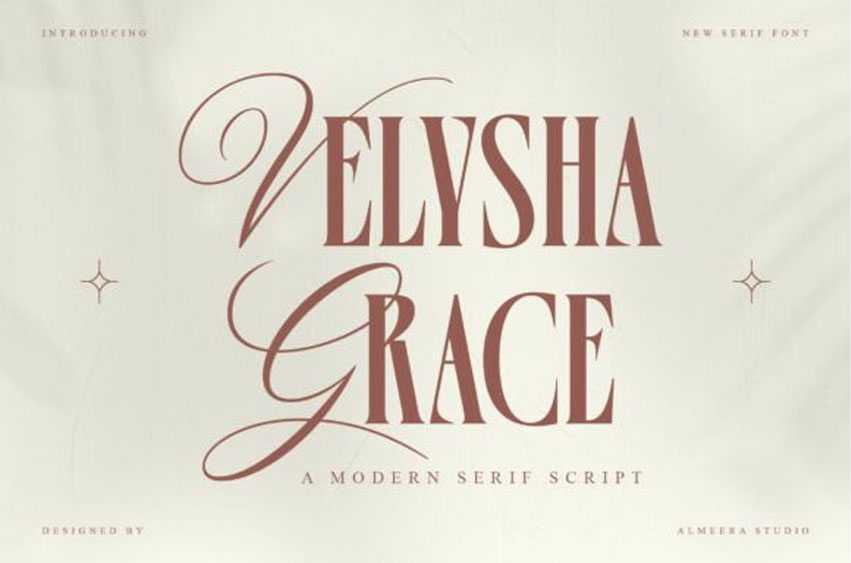
Velysha Grace Font is a Modern Serif Script featuring tall silhouettes, elegant strokes, and long flowing flourishes that bring a high-end, graceful character to your designs.
Velysha Grace font is an exquisite modern serif that marries the structured elegance of a high-contrast serif with the dramatic, sweeping lines of a script, resulting in a breathtakingly sophisticated display typeface.
This font is a true style statement, with its striking, tall letterforms and the luxurious, oversized swash alternates that can be used on both capital letters and descenders, creating an unforgettable visual impact. The Velysha Grace typeface is purpose-built for luxury branding, high-end wedding invitations, fashion editorials, and premium cosmetic or fine jewelry packaging. It delivers an aesthetic of opulence and grace that is both contemporary and timeless.
This versatile modern serif script blend ensures that any headline or logo created with the Velysha Grace font will be perceived as exclusive, custom-designed, and utterly glamorous.
It’s crafted to elevate modern editorial layouts, luxury branding, beauty packaging, fashion logos, wedding concepts, and feminine visual identities. Velysha Grace blends strong structure with soft elegance—creating a contemporary serif script that feels poetic, stylish, and beautifully refined.